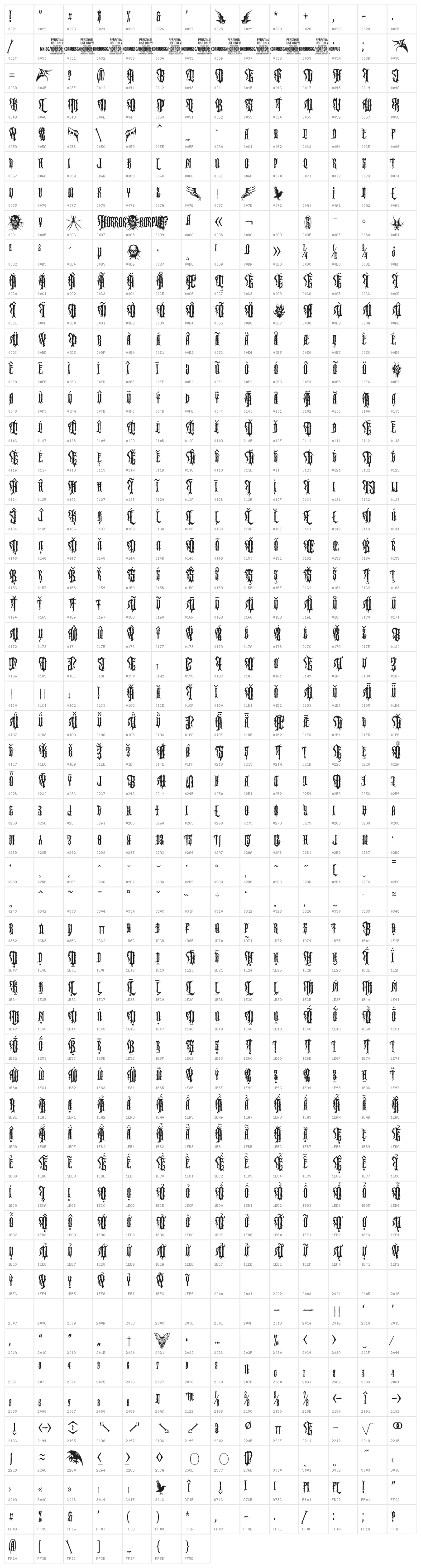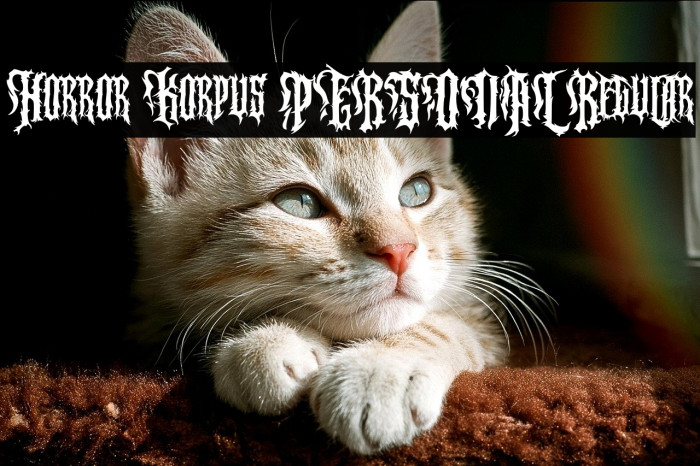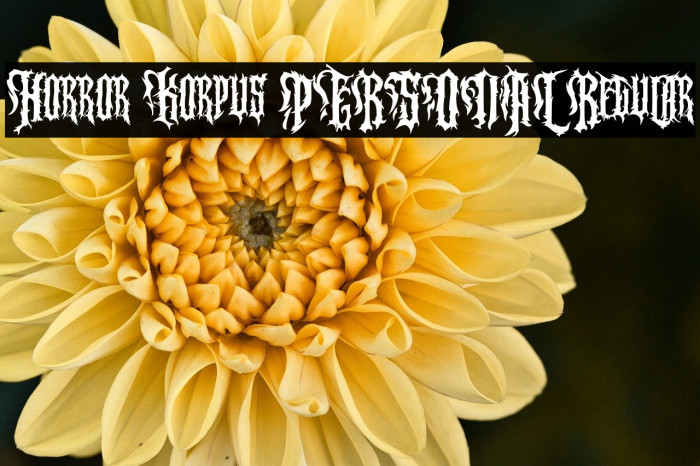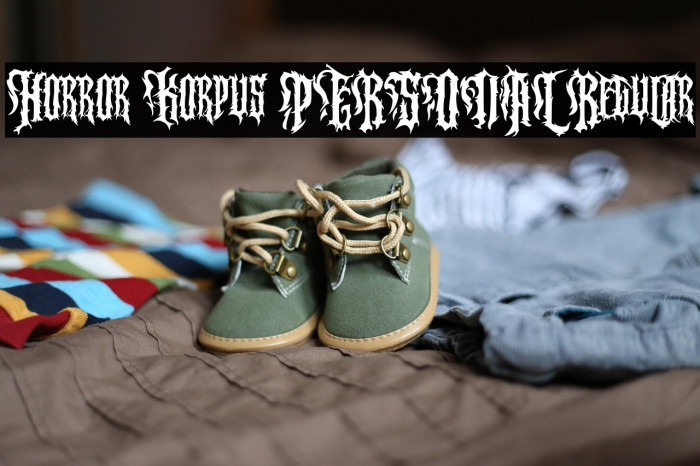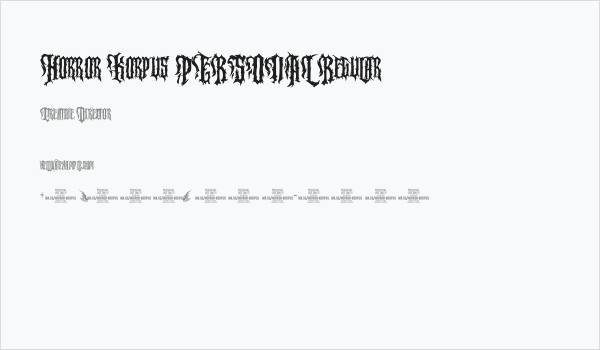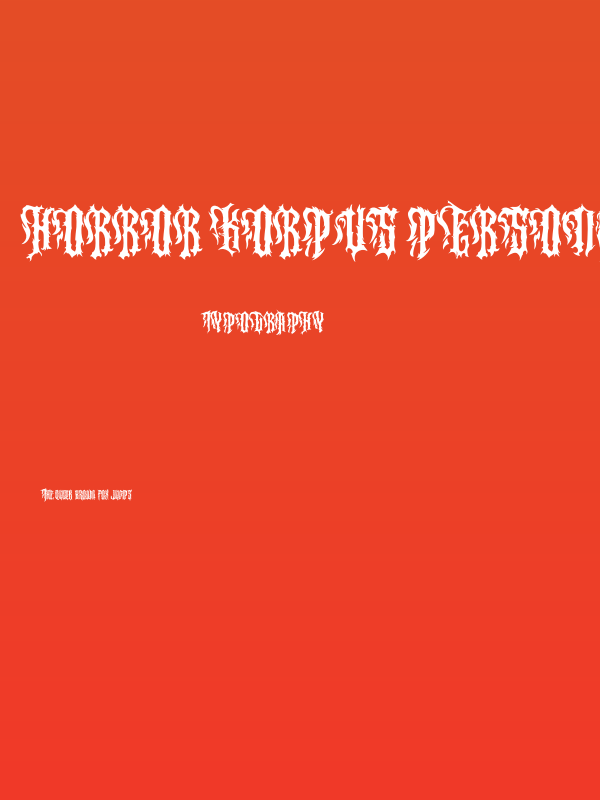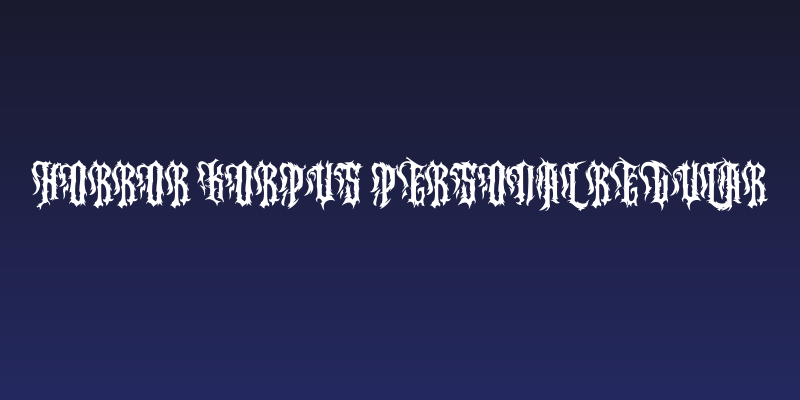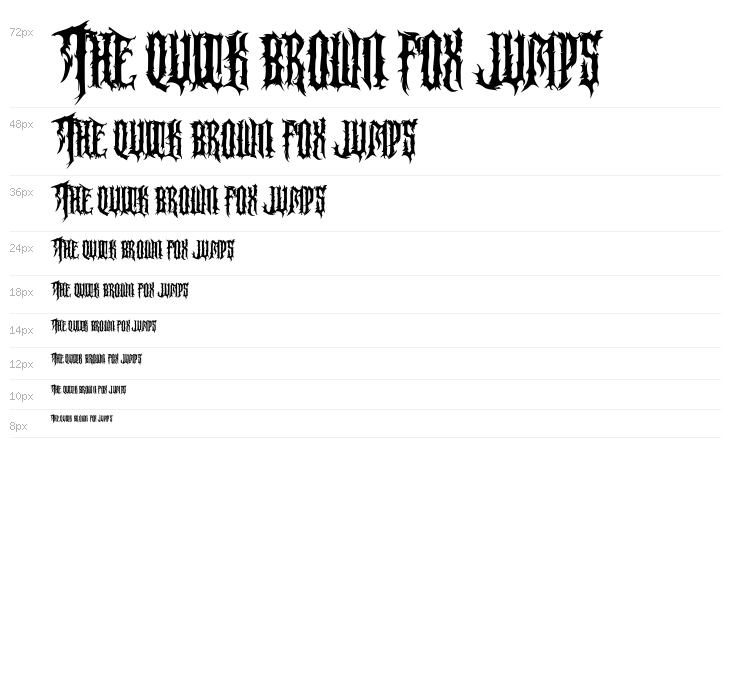
Horror Korpus PERSONAL Regular Font
Horror Korpus PERSONAL Regular Description
This font features a highly decorative and intricate design, characterized by sharp, jagged edges and a gothic aesthetic. The letters are bold and dramatic, with a high level of detail that gives them a menacing and eerie appearance. The uppercase and lowercase letters maintain a consistent style, with exaggerated serifs and pointed terminals. The numbers and special characters follow the same theme, adding to the overall cohesive look. This font is perfect for creating a spooky or horror-themed atmosphere, making it ideal for Halloween projects or any design that requires a dark and mysterious vibe.
| Overall Style | Gothic, Decorative |
| Use Case | Headlines, Logos, Themed Events |
| Proposed Projects | Ideal for horror-themed posters, Halloween invitations, video game titles, and movie logos. |